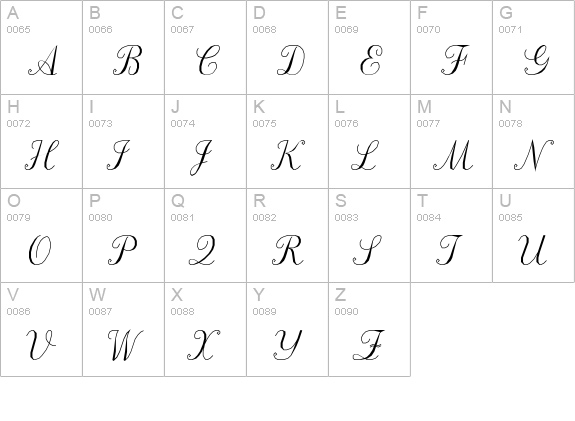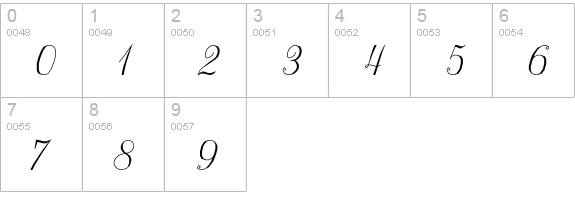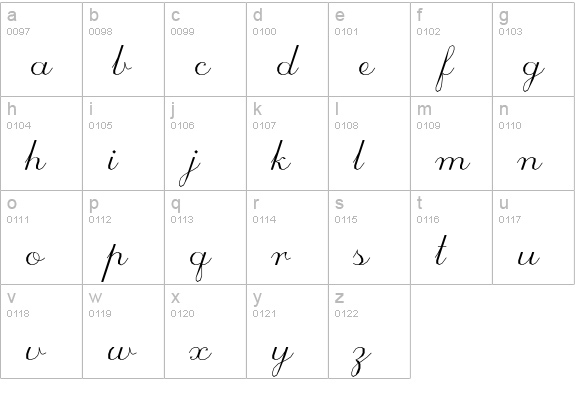
ScriptC Font Details
Introducing ScriptC, a captivating and elegant font that will add a touch of sophistication to any project. With its graceful and flowing strokes, ScriptC exudes a sense of timeless beauty, making it the perfect choice for wedding invitations, branding materials, and other creative endeavors. But what sets ScriptC apart from other fonts is that it is not only visually stunning, but also free! Yes, you read that right – ScriptC is freely available to download at FontsMarket.com. This means that you can enhance your designs without having to worry about breaking the bank. Whether you're a professional designer or a DIY enthusiast, ScriptC offers endless possibilities. Its versatility allows it to seamlessly adapt to various styles, from classic and traditional to modern and trendy. With a wide range of ligatures and alternative characters, you can truly make ScriptC your own, adding a personal touch to your creations. ScriptC is designed with precision and attention to detail, ensuring that each letter flows effortlessly into the next. Its smooth curves and delicate lines create a harmonious balance that is pleasing to the eye. Every stroke feels intentional and deliberate, resulting in a font that exudes professionalism and refinement. Don't miss out on the opportunity to enhance your designs with ScriptC. Download it for free at FontsMarket.com and unlock a world of possibilities. Whether you're designing a logo, crafting a heartfelt message, or simply bringing a touch of elegance to your everyday life, ScriptC is the font that will elevate your creations to new heights. Let ScriptC be your creative partner and watch as your designs come to life with beauty and grace.